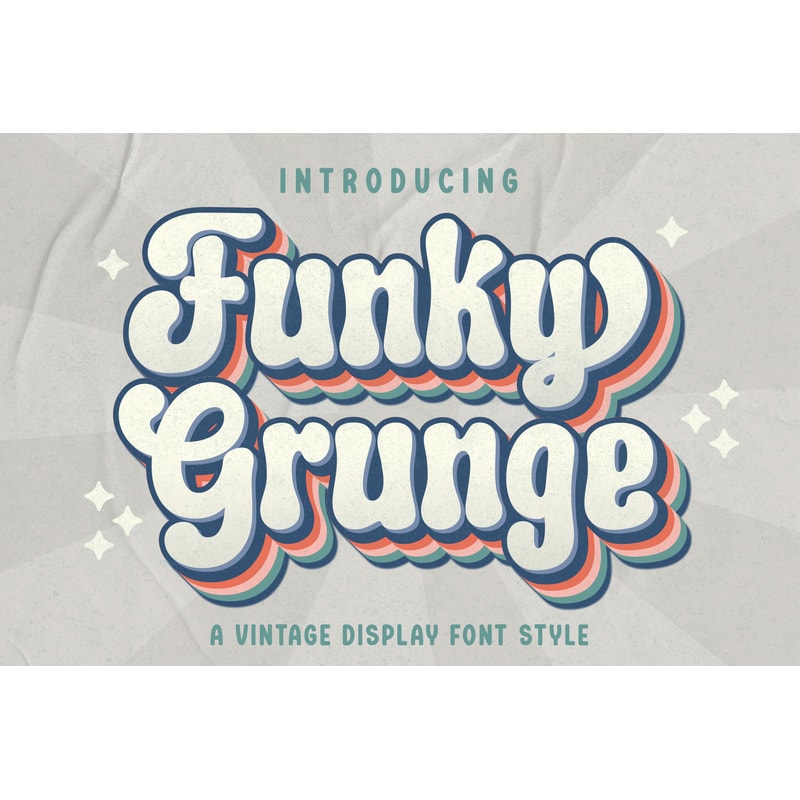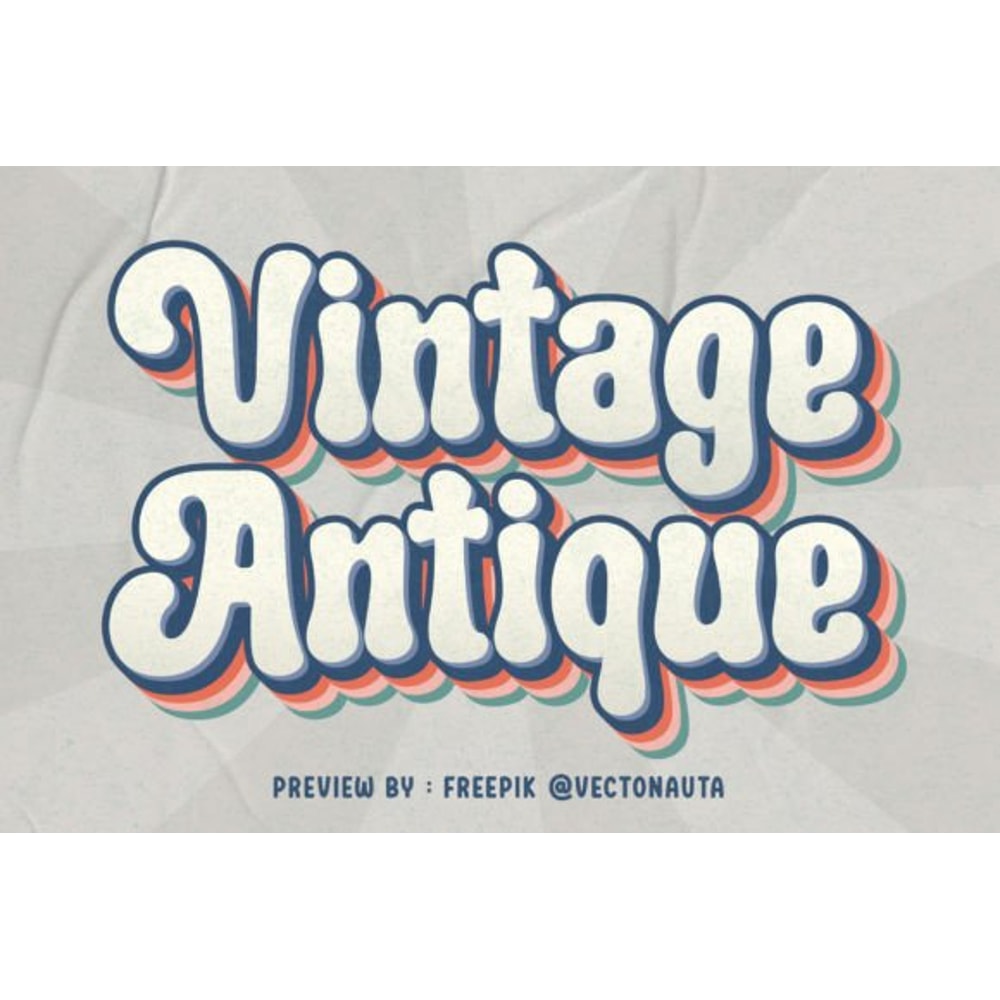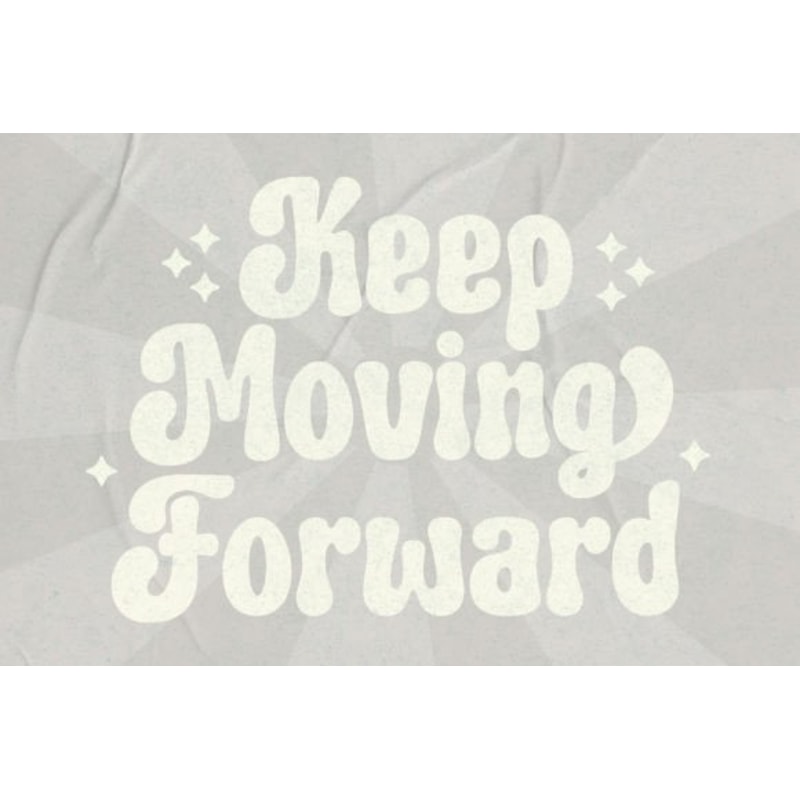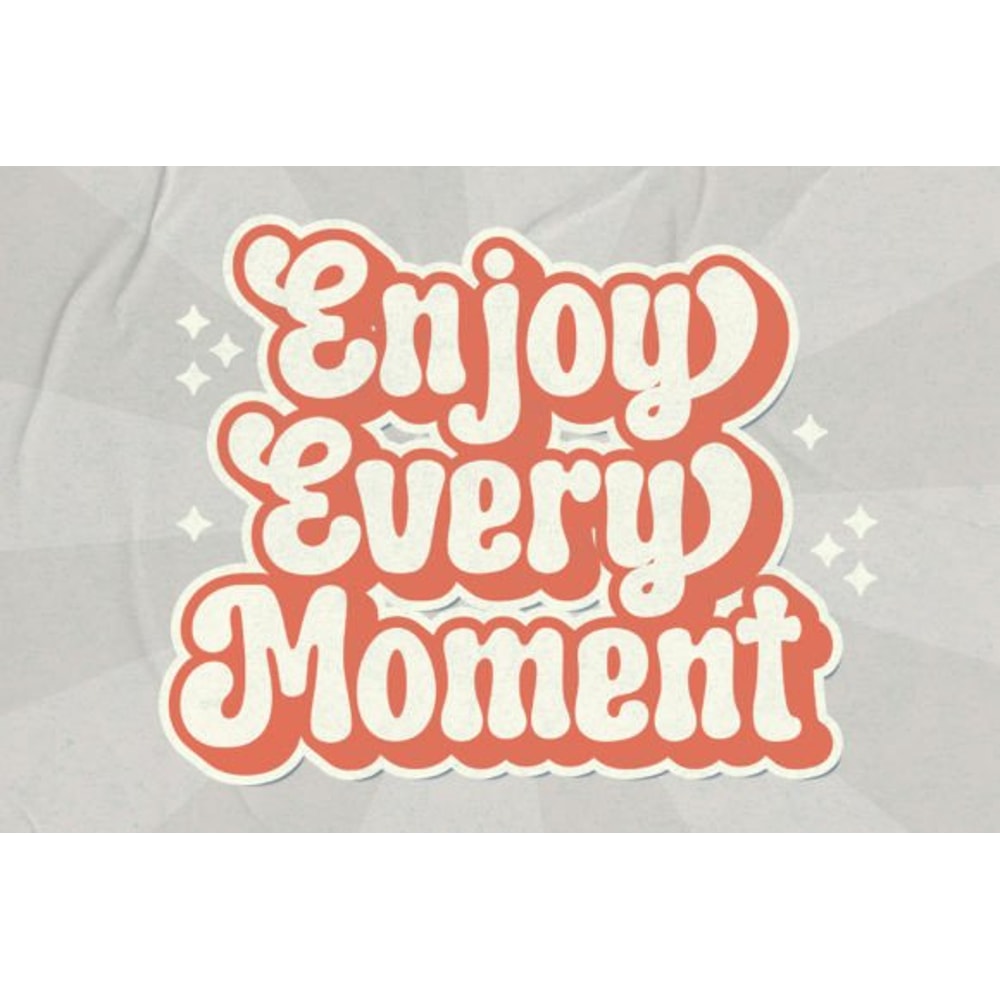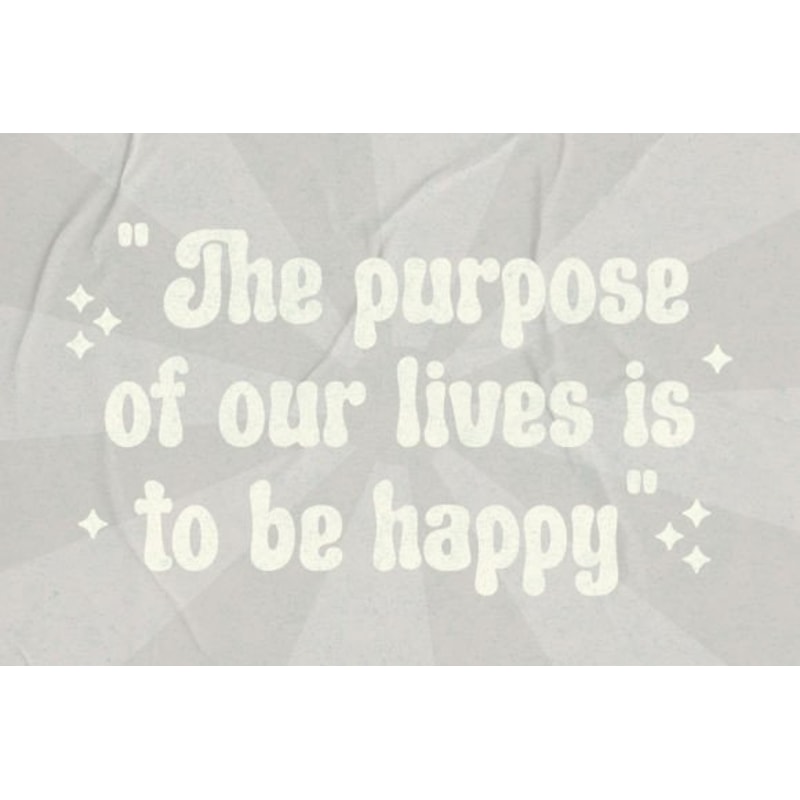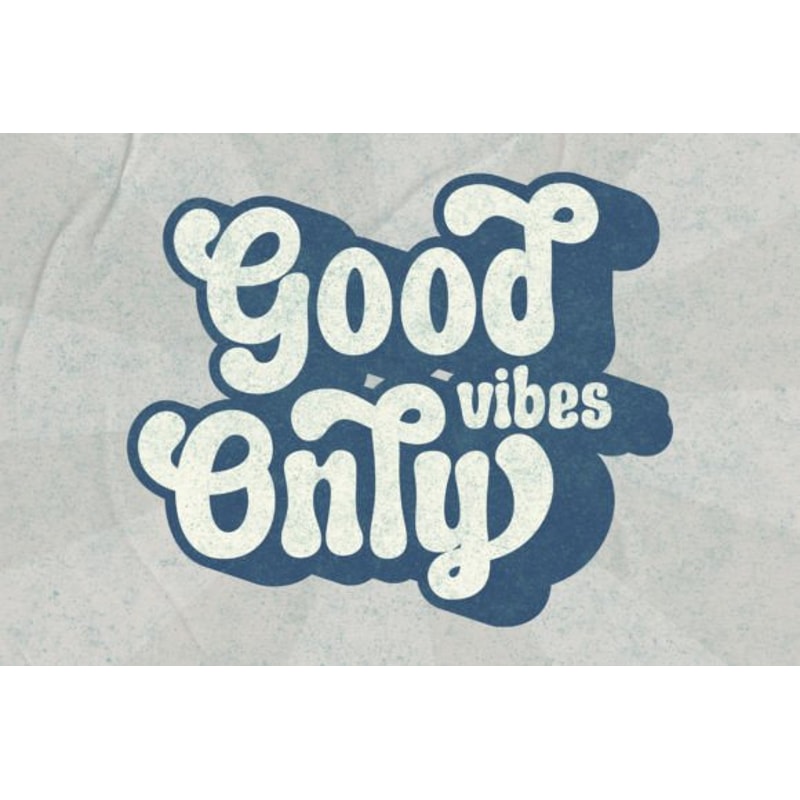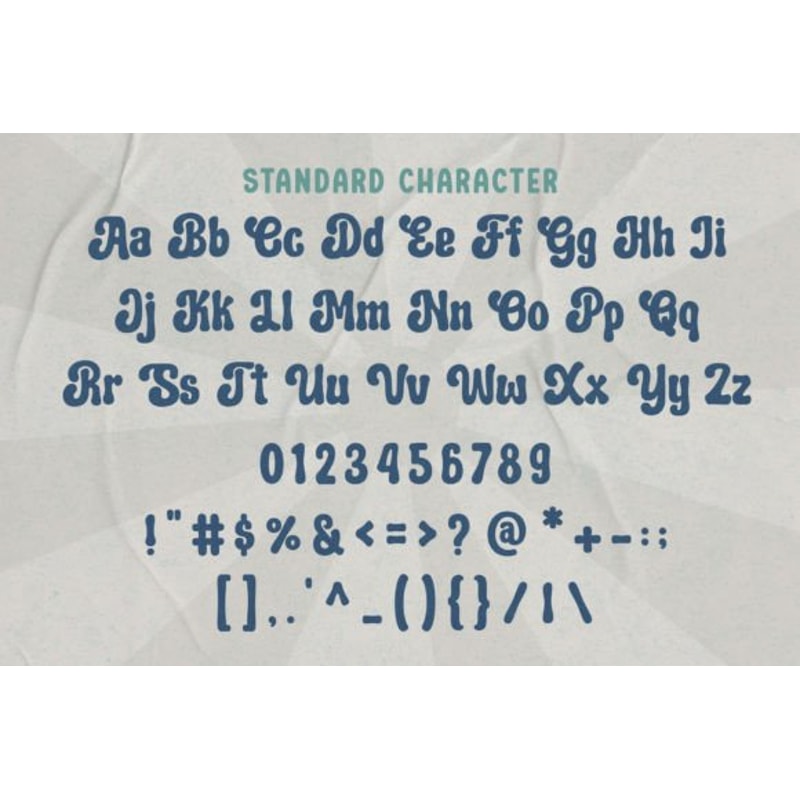
Funky Grunge Font
Funky Grunge is a cool, vintage-style display font. Use it to add that special retro touch to any design idea! It can be used for logos, branding, invitations, stationery, wedding designs, social media posts, and much more!